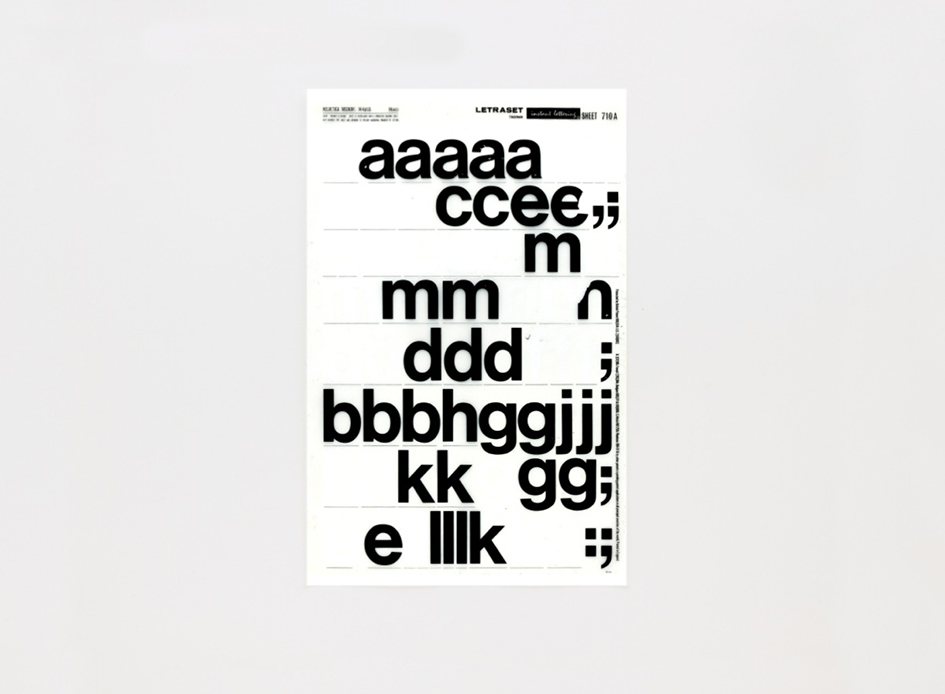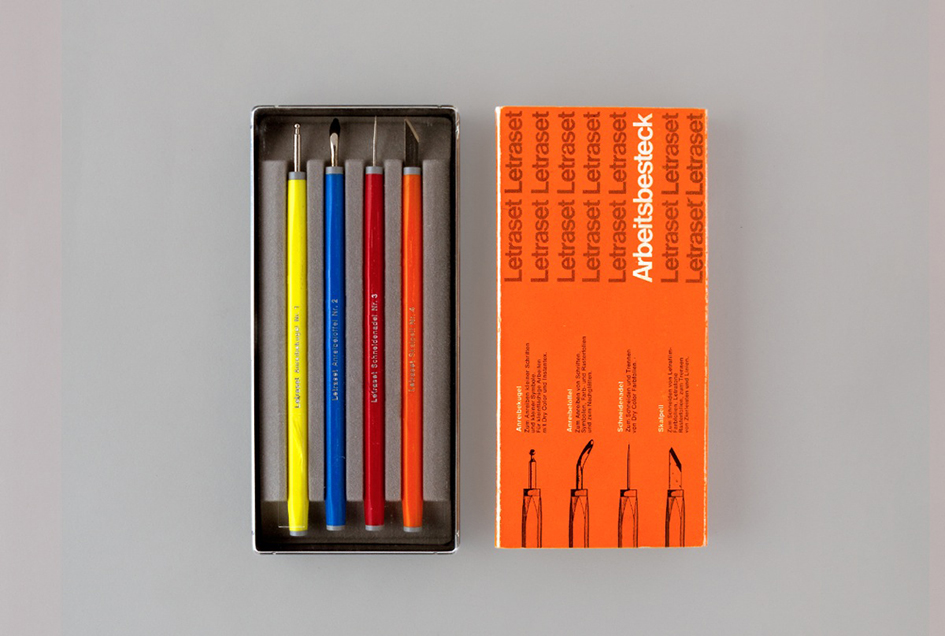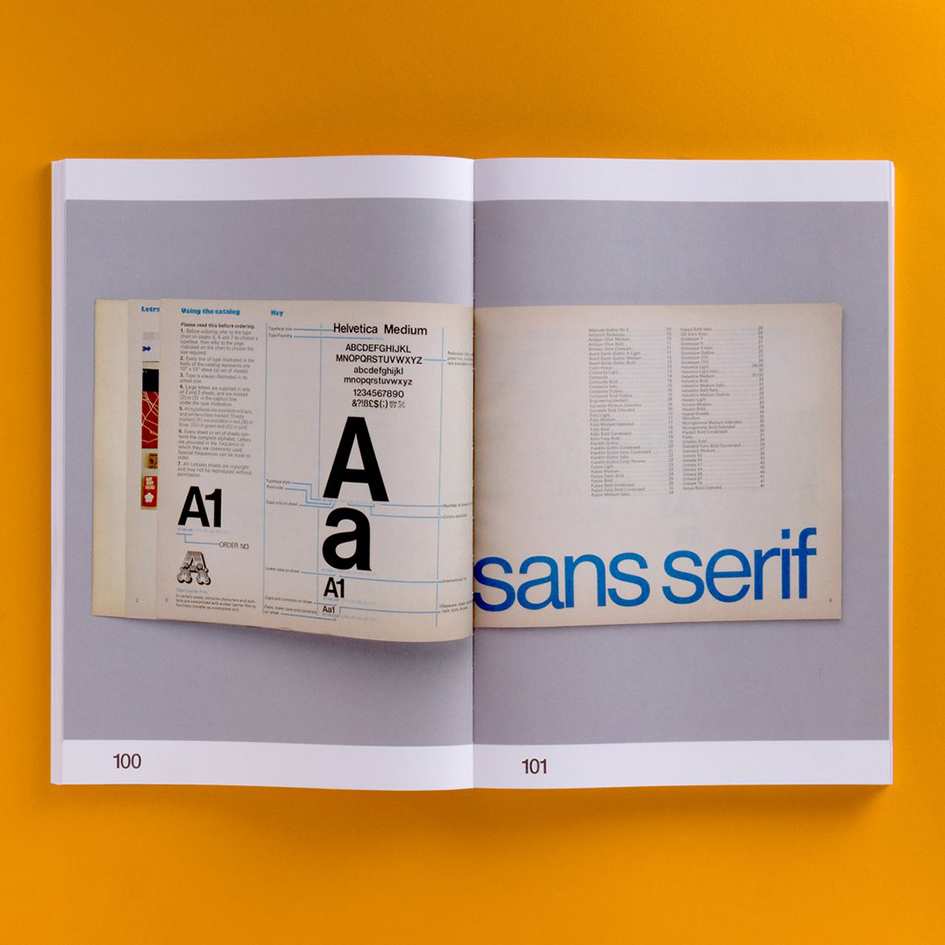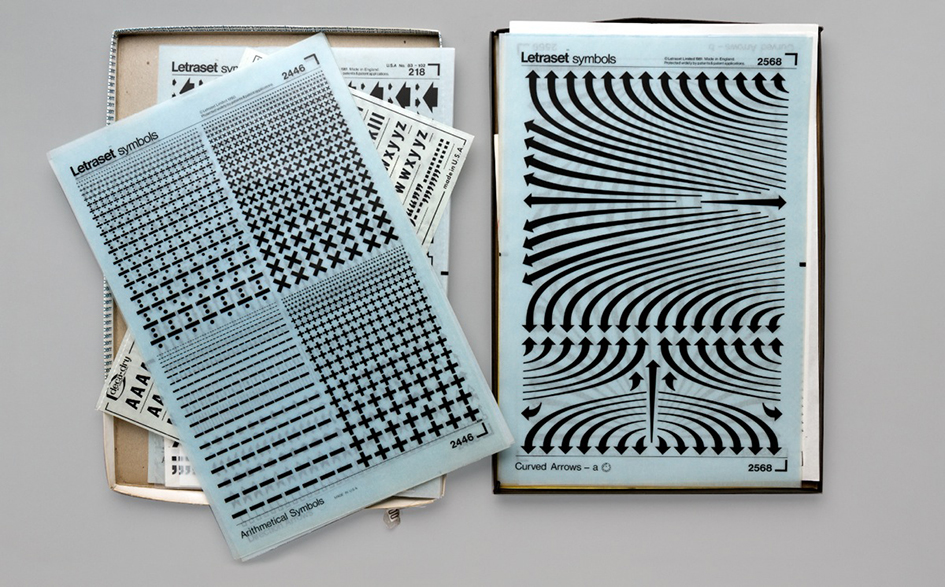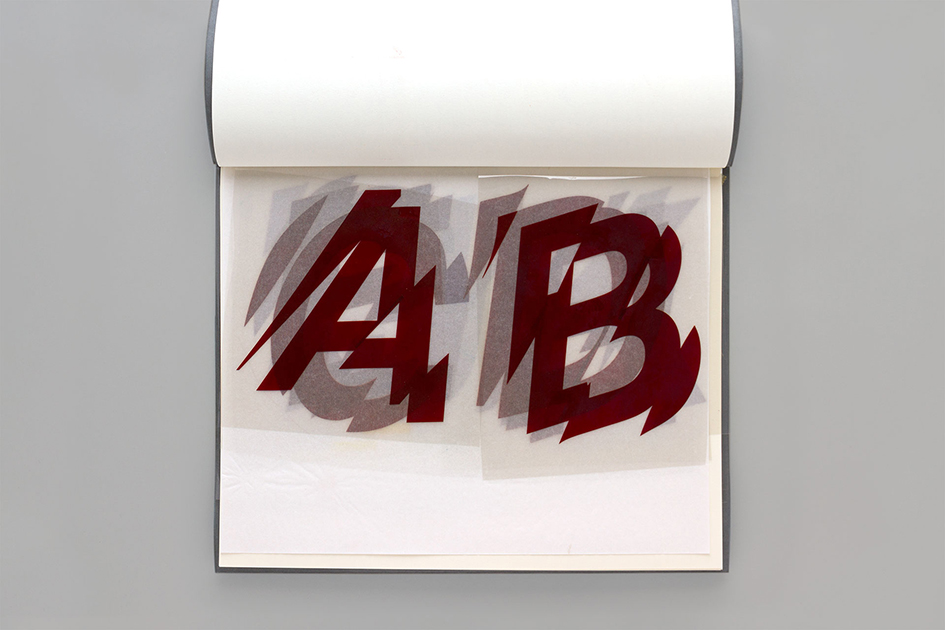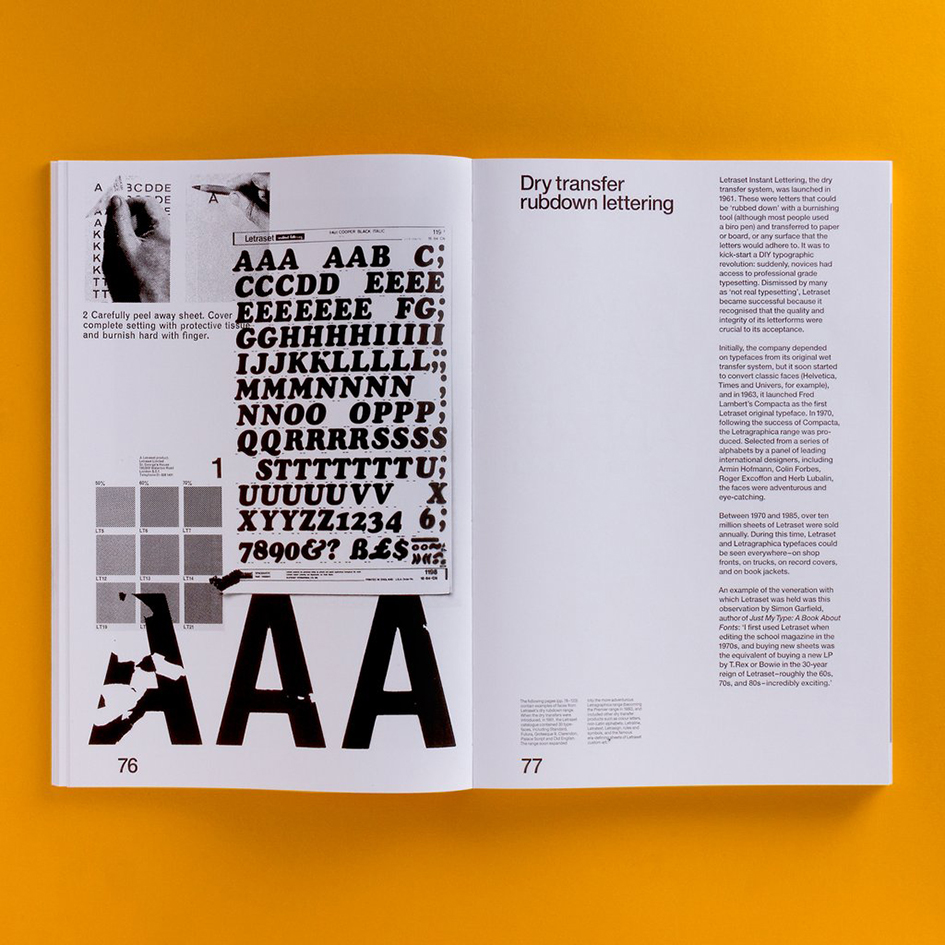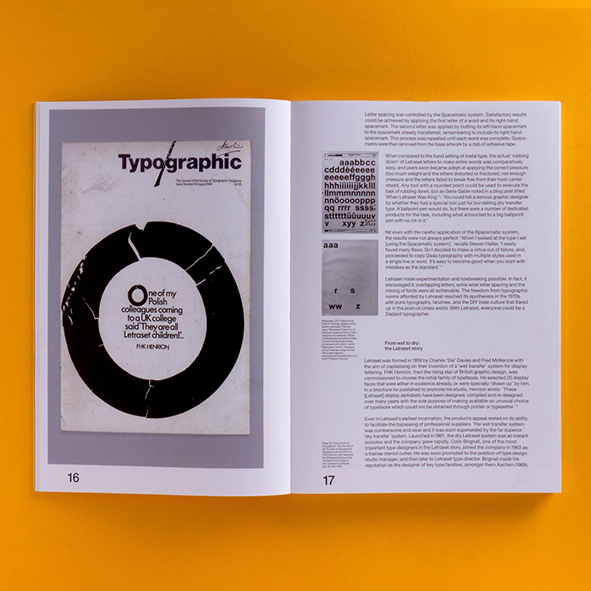
Letraset: the nostalgic and very DIY typographic revolution explained
Some products are inextricably infused with nostalgia. Letraset is one of them” writes Kathryn Westcott for BBC. “Sheets of film that would be rubbed with the end of a pencil to give way to beautifully formed letters - as long as you had a steady hand and the patience of a saint” she adds on the revolutionary Letraset which changed typography in 1961 with graphic designers, architects and numerous amateur publishers of zines “embracing it with gusto”.
Now, after four years in the making, Unit Editions presents us with “Letraset: The DIY Typography Revolution”, literally the first comprehensive history of the rubdown lettering system that revolutionised typographic expression.
The book tells the Letraset story from its early days as a difficult-to-use wet system, to its glory years as the first truly democratic alternative to professional typesetting. The book also looks at Letraset’s present-day revival amongst a new set of admirers who recognise the typographic excellence of the system’s typefaces.
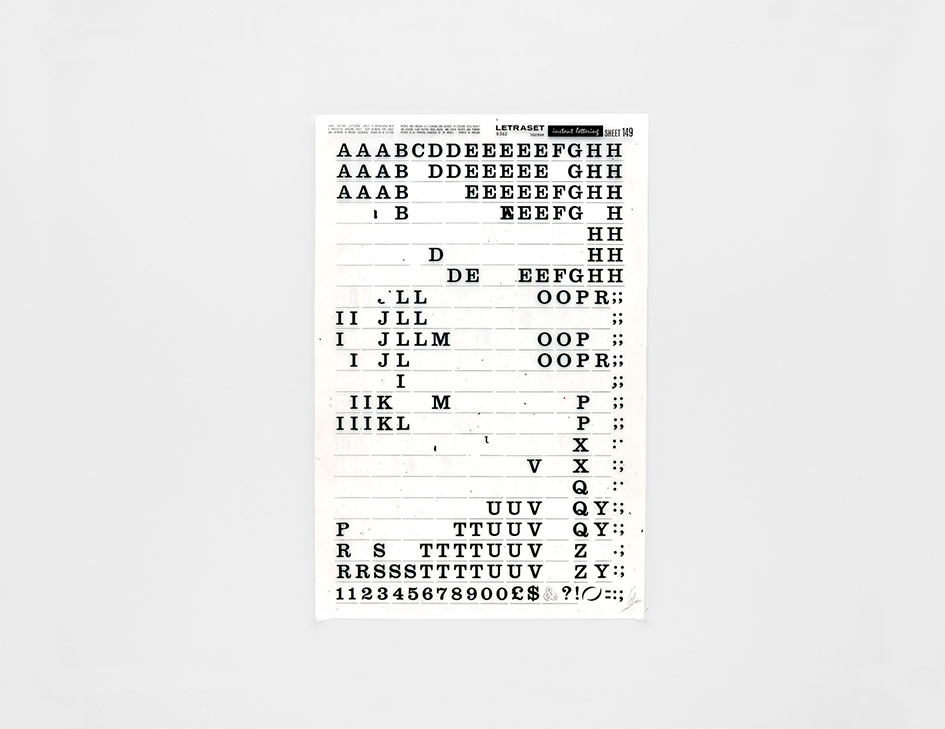
Essays by Colin Brignall, Dave Fairey and Mike Daines – all key members of the Letraset team – provide expert insight into the rise of Letraset as a typographic and commercial powerhouse. A central essay by Adrian Shaughnessy examines the typographic and cultural impact of the system.
The book’s design is by the Spin team of Tony Brook and Claudia Klat. It uses many rare specimens from Letraset’s past – catalogues, press ads, mailers, storage units, and of course, sheets of classic Letraset typefaces.
The book comes with a gatefold Letraset timeline. It has an introduction by Malcolm Garrett, and features in-depth interviews with Mr Bingo, Erik Brandt, Aaron Marcus, David Quay, Dan Rhatigan, Freda Sack, Andy Stevens and Jon Wozencroft.
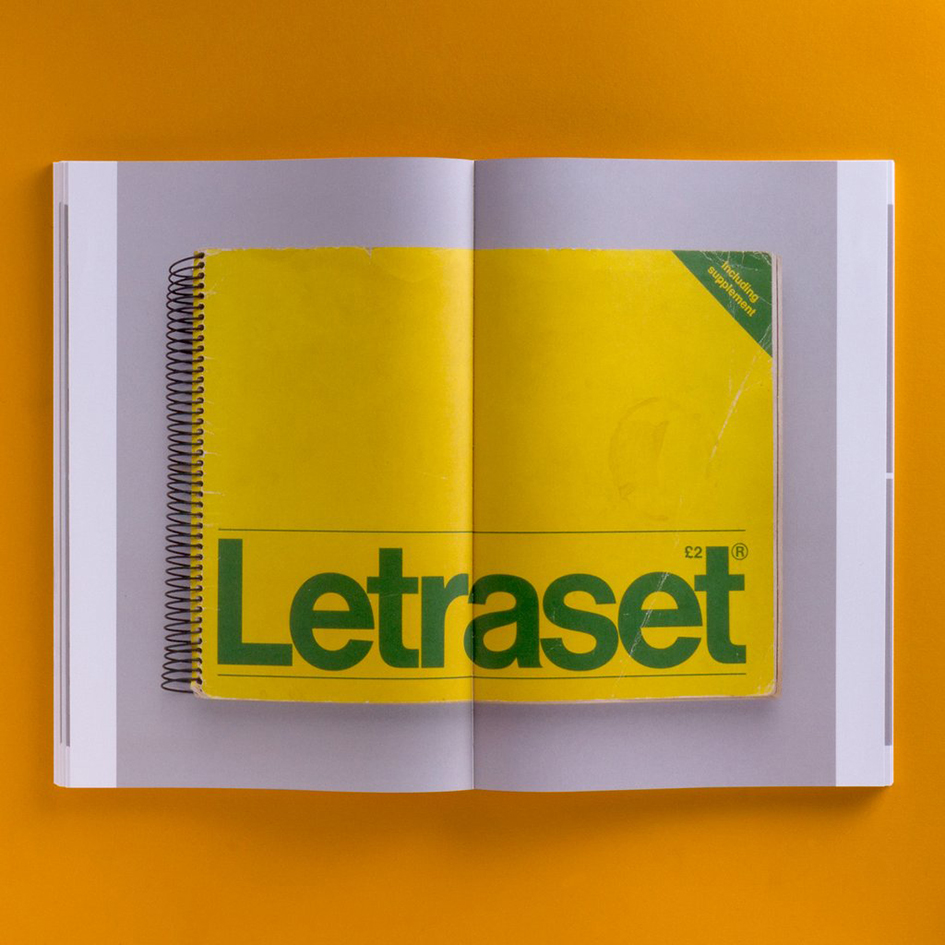
The Letraset business was founded in London in 1959, introducing innovative media for commercial artists and designers. Their original product was the Letraset Type Lettering System and by 1961, Letraset's dry rub-down Instant Lettering was perfected. This was to be their core product for many years to come.
Starting in 1964, Letraset also applied the dry rub-down transfer technique to create a children's game called Action Transfers, which would later develop into Kalkitos (marketed by Gillette) and many other series of transferable figures that were very popular up to the 1980s.
Seeing a decline in the sales of their materials in the early 1990s, Letraset moved into the desktop publishing industry, releasing software packages such as ImageStudio and ColorStudio for the Macintosh. These never saw widespread success. However, as Letraset held the rights to their fonts that had been popular on the dry transfer sheets, it made sense to enter the digital font market (see, for example, Charlotte Sans). Letraset thus began releasing many fonts in formats such as PostScript.